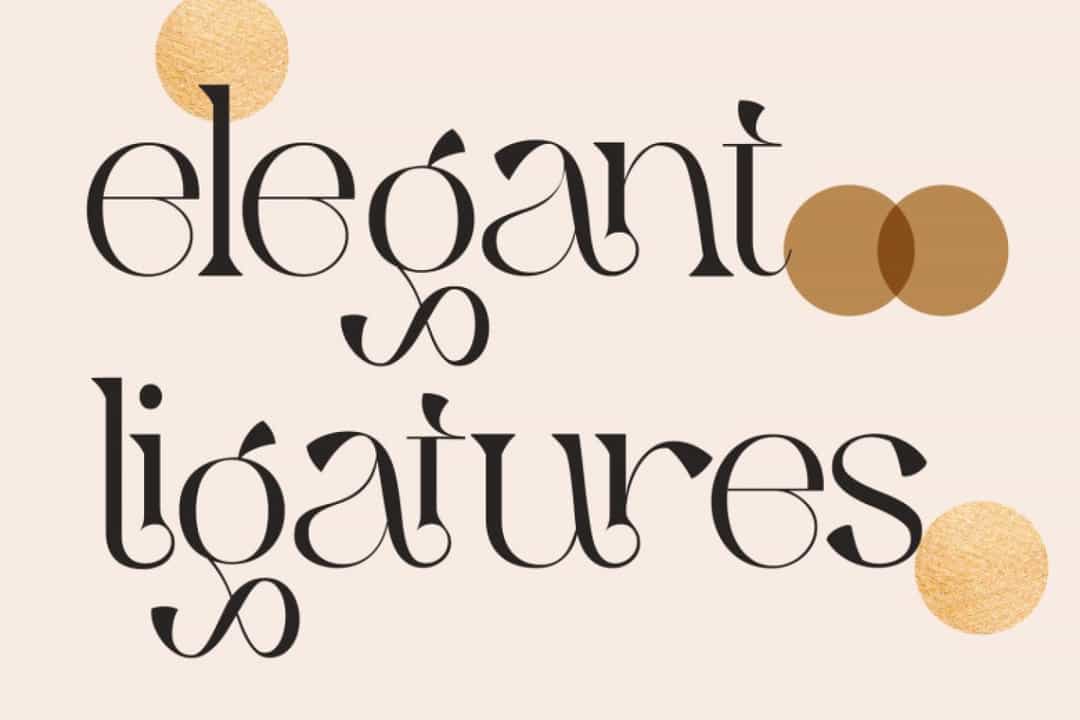
Qaitan Ligatures is classification of elegant serif font designing from the old era with the inclusion of Ligatures. This font is equally beautiful at any size but I think it is most suitable for text size text font. There are two variations: The first one is the Regular Shadow and the second one is the Regular Shadow Shadow.